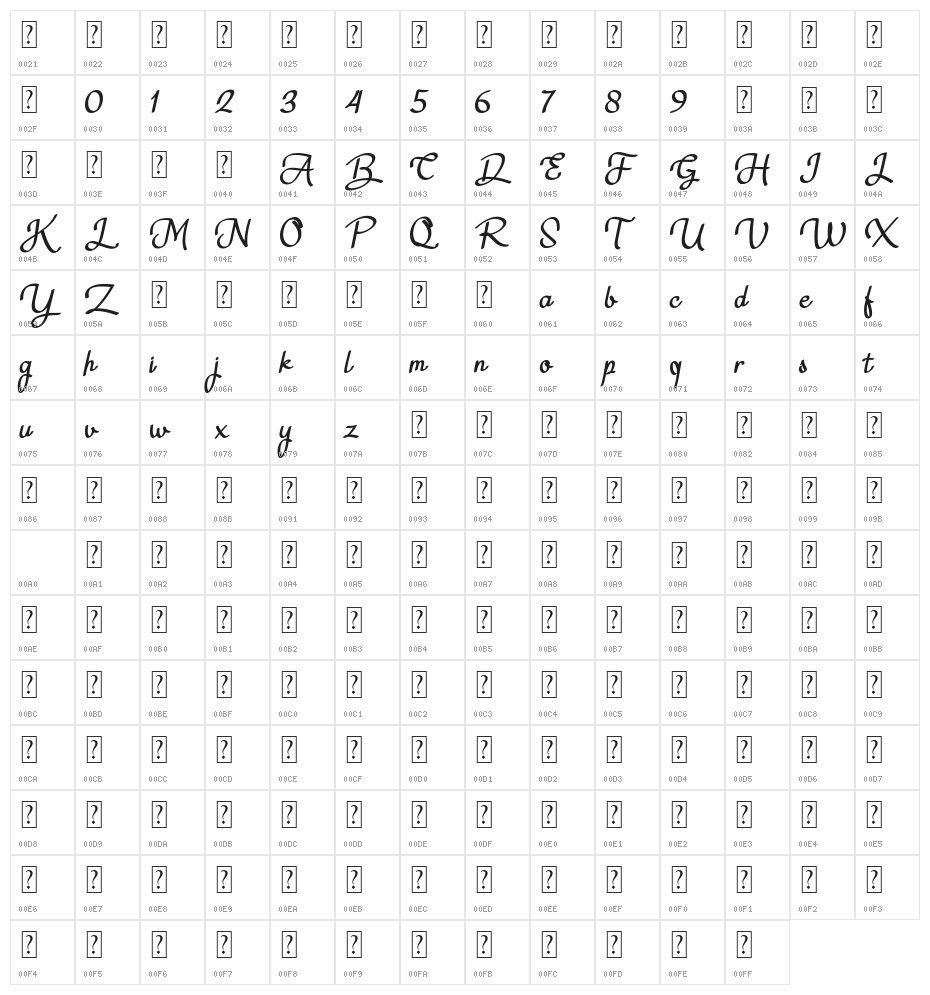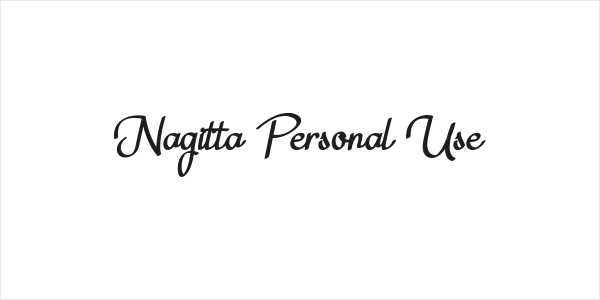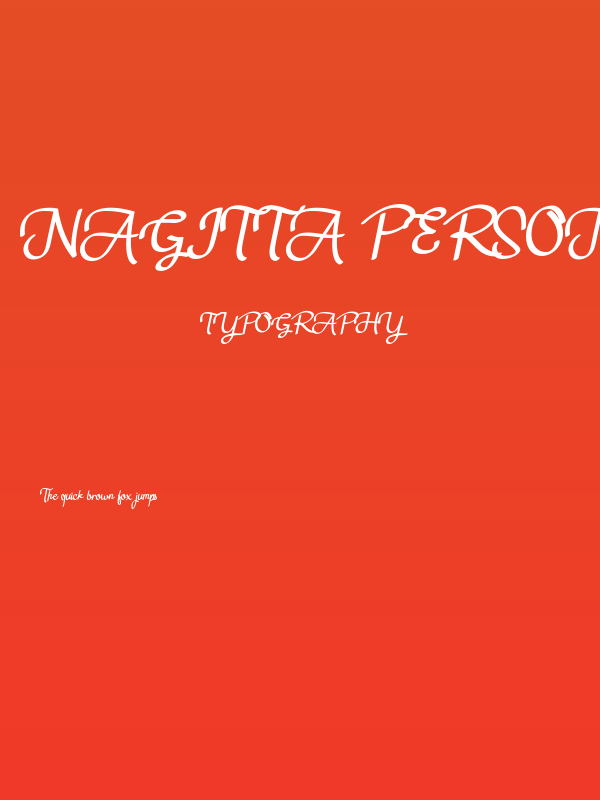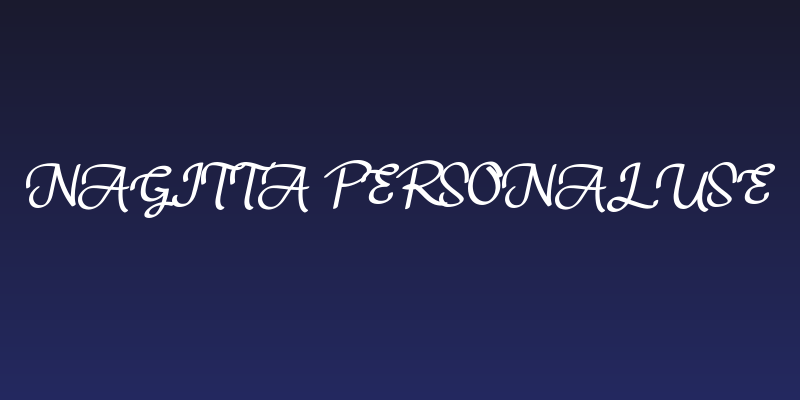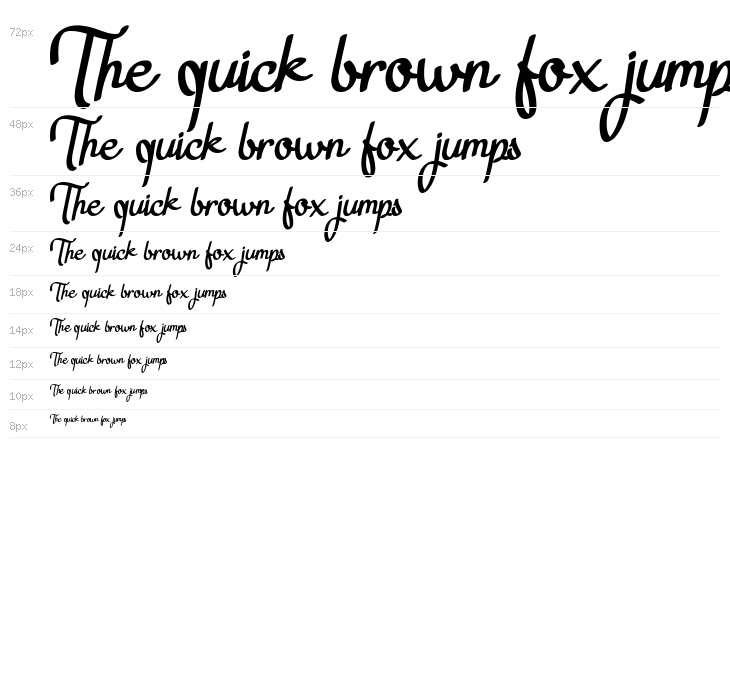
Nagitta Personal Use Font
Nagitta Personal Use Description
This font features an elegant and flowing script style, characterized by its smooth, cursive letterforms that mimic the fluidity of handwriting. The uppercase letters are particularly ornate, with sweeping curves and loops that add a touch of sophistication. The lowercase letters maintain a consistent style, offering a harmonious blend of readability and decorative flair. The numerals are designed to match the overall aesthetic, with a slight slant that complements the script nature. This font is ideal for projects that require a personal, artistic touch, such as invitations, greeting cards, or branding materials.
| Use Case | Headlines, Invitations, Artistic projects |
| Proposed Projects | Ideal for wedding invitations, greeting cards, personal branding, and artistic projects. |